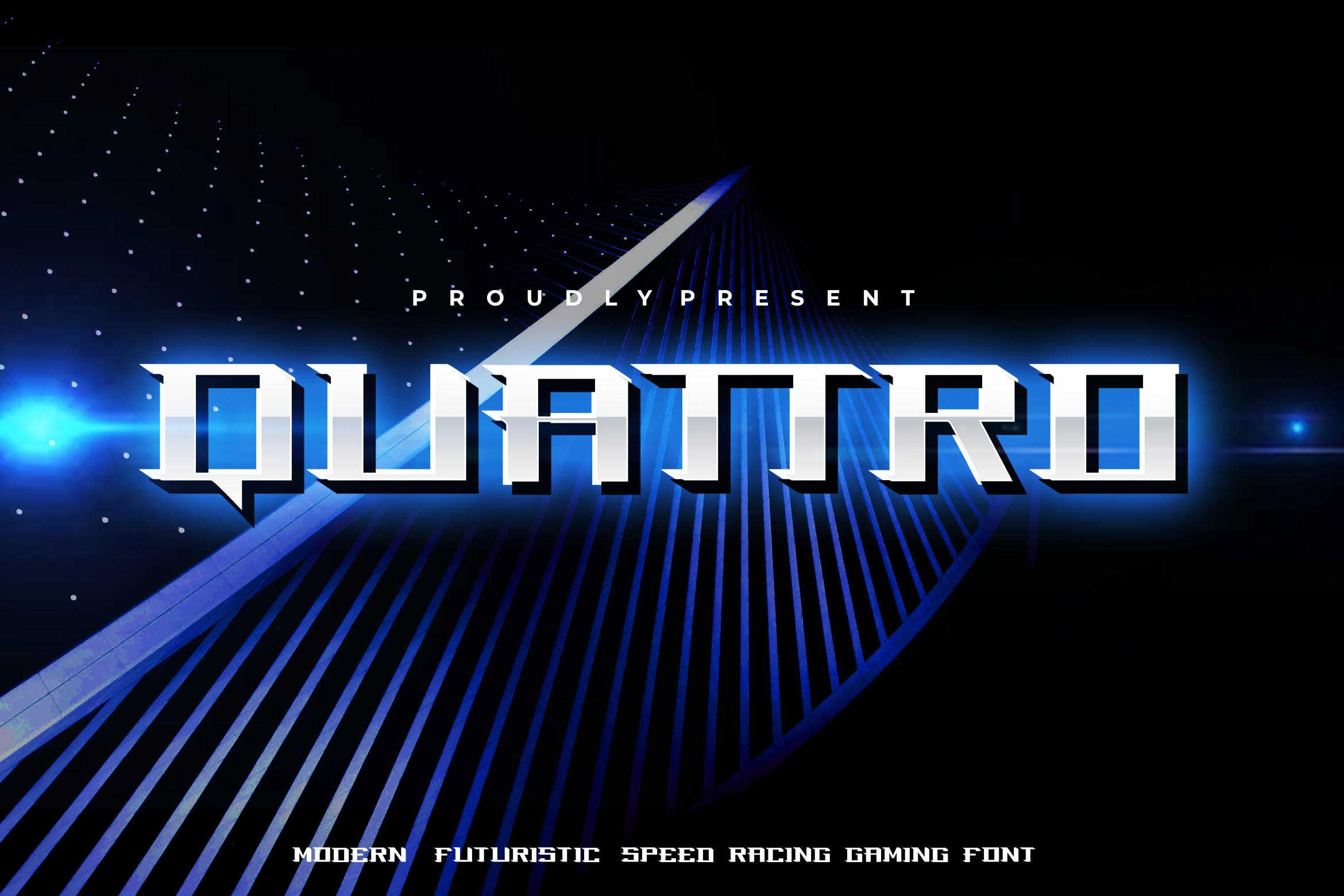
Quattro - Modern racing gaming font
Introducing Quattro - Modern Futuristic racing gaming font
Introduce my new font called Quattro. Quattrois a futuristic font inspired by science fiction, racing movies and books. This font is suitable for various purpose such as movies, posters, logos, labels, webfont and any modern purposes.